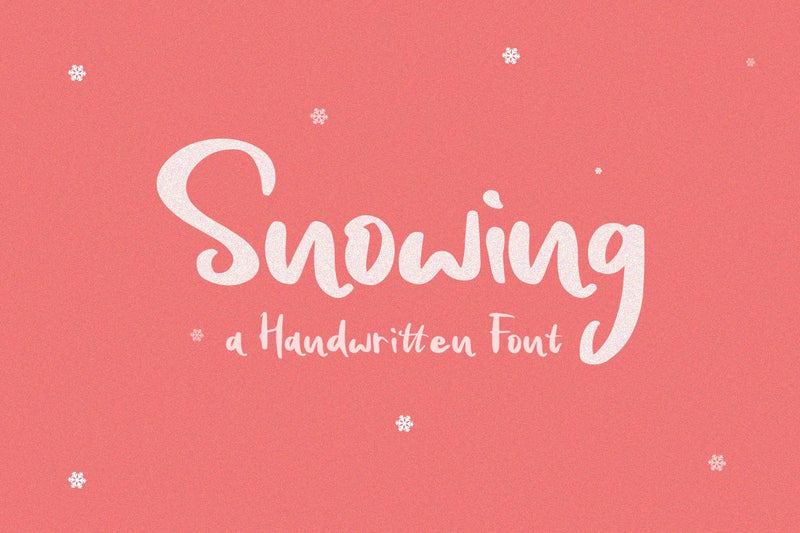
Snowing - Handwritten Font
Introducing Snowing Handwritten Font. With a classy and natural handwritten style, it brings a classy and chic typeface. Snowing is best used for branding, logotype, quotes and etc .
- Beautiful Ligatures
- Numerals and Punctuation